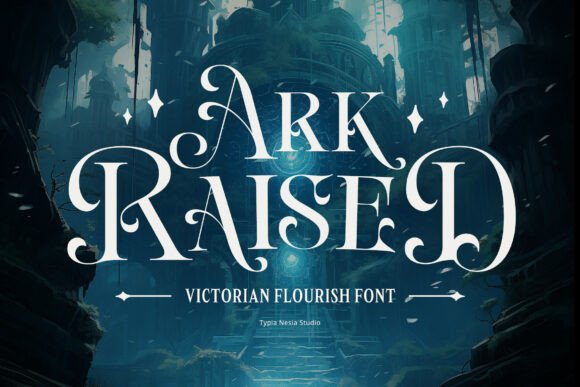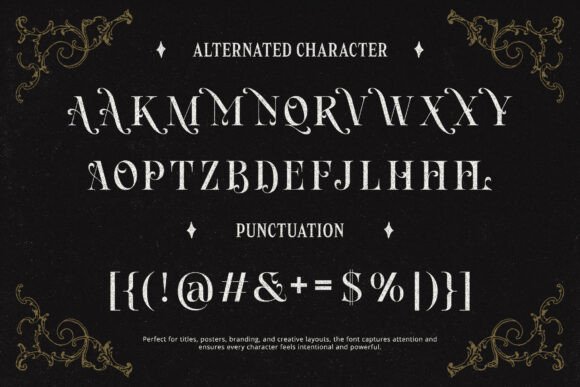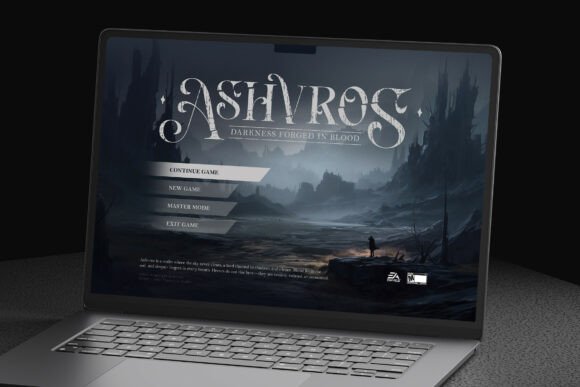
Ark Raised Font
Ark Raised – Fantasy Novel Game – Swashes Victorian Font
Ark Raised is an elaborate Victorian Serif font defined by its detailed, ornamental Swashes, that captures the essence of classic grandeur and dark fantasy, It perfectly captures an elegant and luxurious aesthetic with a touch of vintage drama, making it ideal for fantasy and high-end design, creating visually rich titles for novel covers, video game branding, and book design, while also providing a unique, classic for logos, premium packaging, Poster art and any project that demands a sense of luxury and fantasy. Its strong presence ensures a majestic and unforgettable impact in any graphic application.